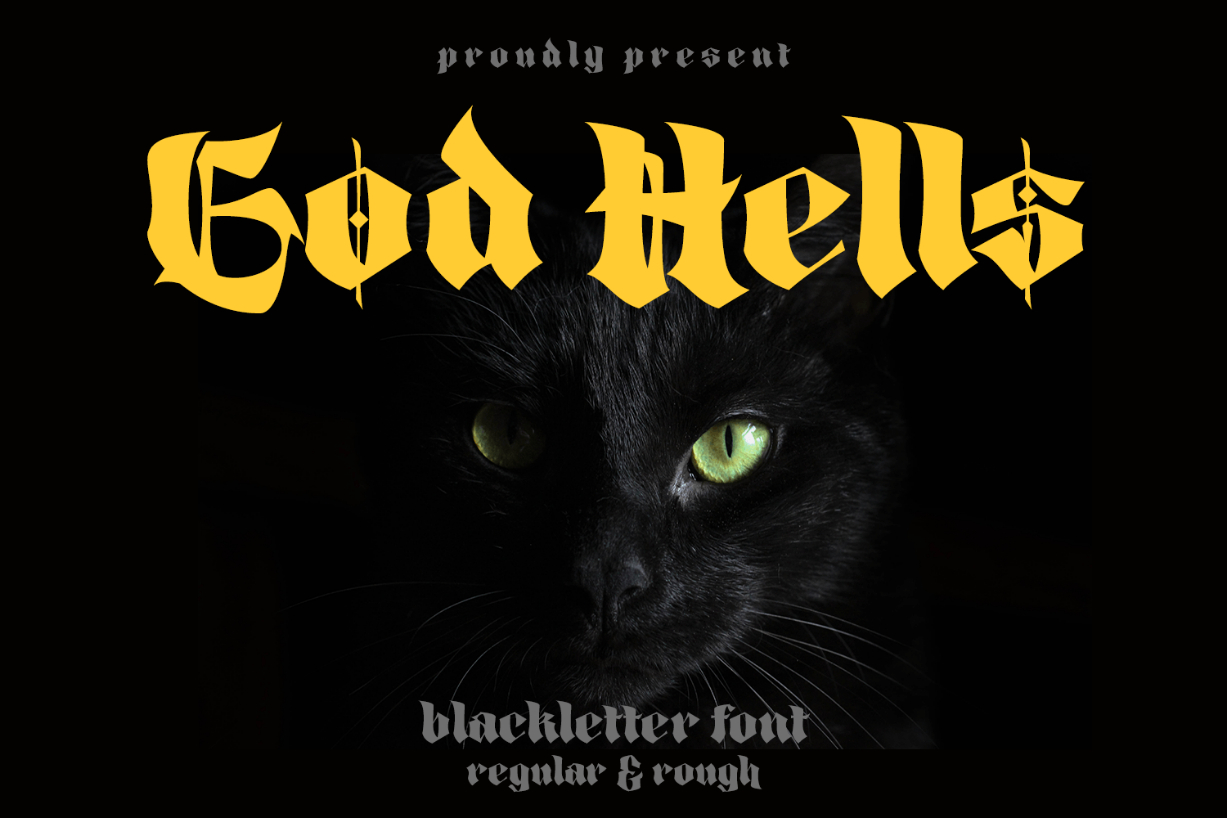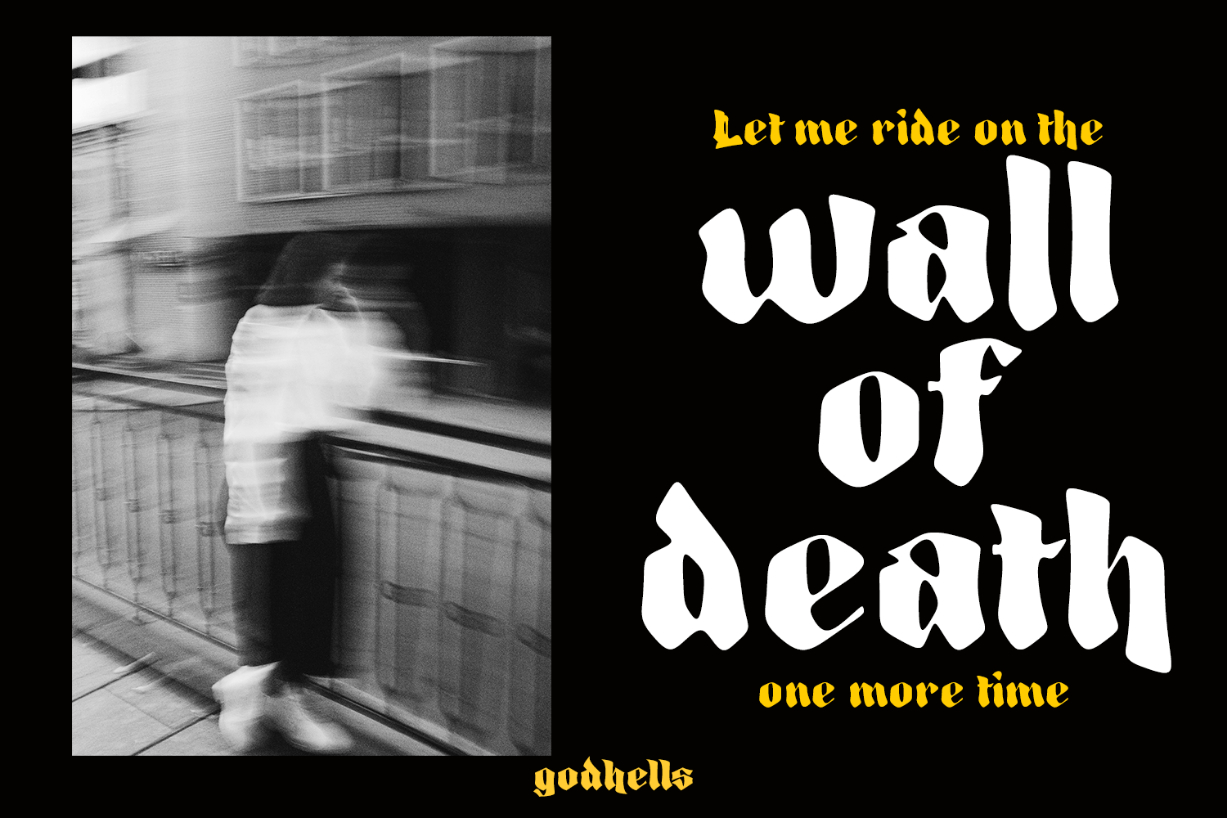
About God Hells Font
God Hells is a bold, Gothic-style blackletter font that will impress with its stylish features. Use it for product packaging, branding, or other projects that need strong and daring typography!